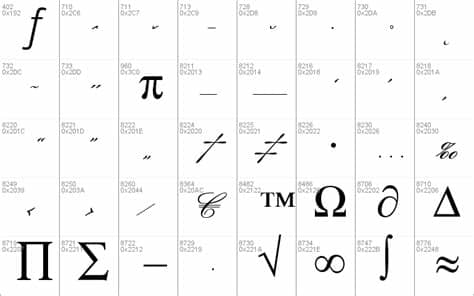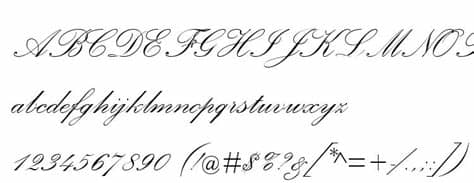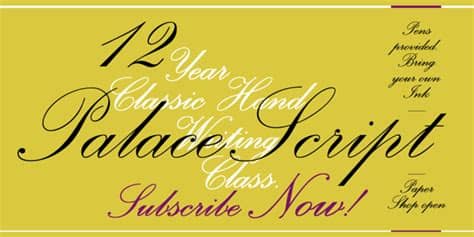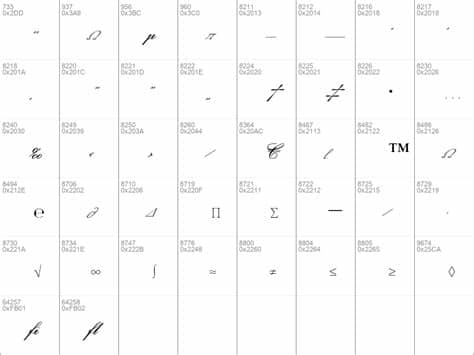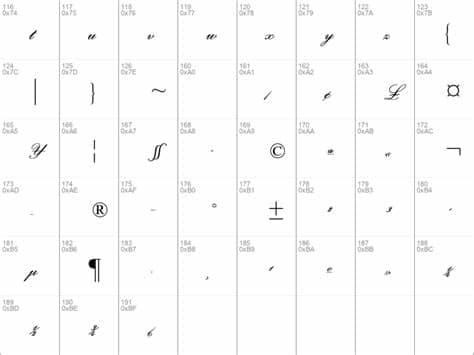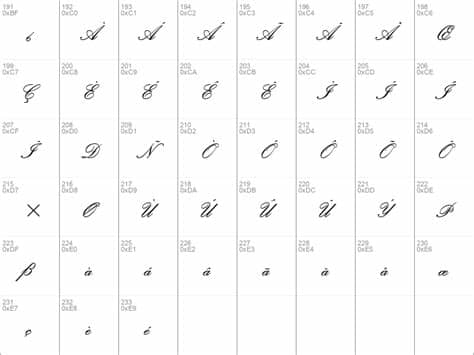
Uploaded by sandy (1 styles). The font is classified as regular fonts. Palace script mt file format: Fontsmarket has over 72000 amazing fonts which can satisfy your need by making your content stand out. Palace script mt design and data by the monotype corporation. Din bold, dinpro regular, dinpro bold, dax regular, bauhaus 93. + palace script mt regular. Unfortunately this font is removed due to copyright issues. Its steep incline and dramatic color variation give its letters the appearance of being engraved. In due course, you may need other script faces in your type library, but palace script mt is a standard that you'll. Design and data by the monotype corporation. Palace script mt font subfamily identification: Palace script mt font preview.